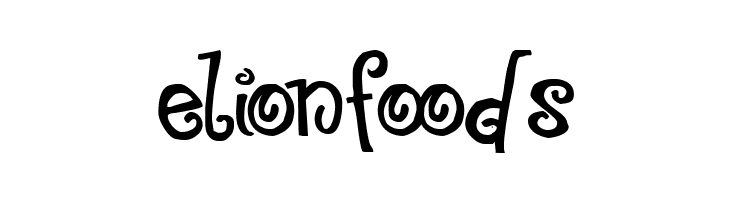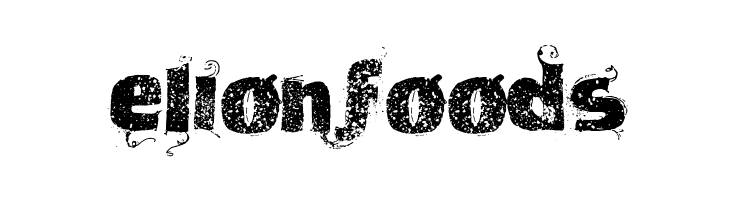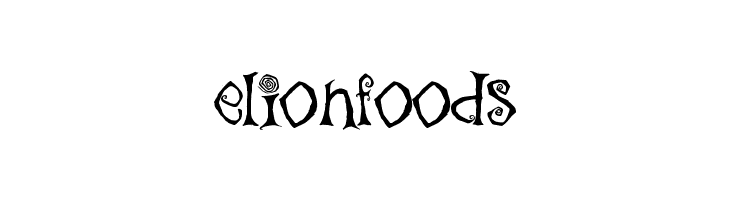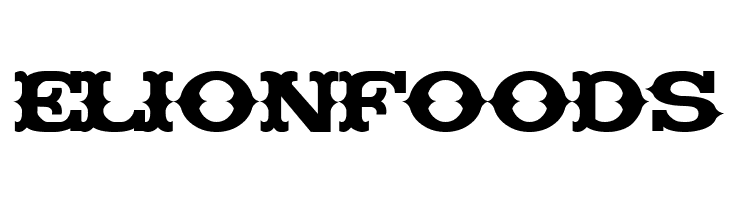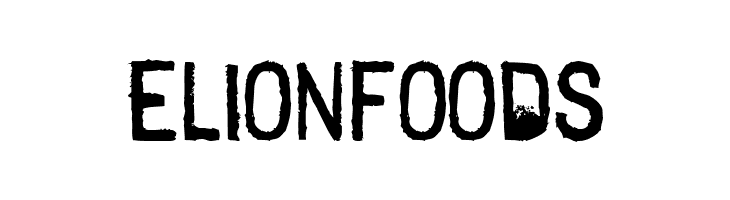
( Fonts by Christopher Hansen )
A whimsical, decorative font with intricate, vine-like embellishments.
( Fonts by Typearound )
A playful, hand-drawn font with bold, whimsical strokes.
( Fonts by Kimberly Geswein - kimberlygeswein.com )
A whimsical, decorative font with floral and spiral embellishments.
A bold, decorative font with a vintage, grunge texture and intricate embellishments.
( Fonts by Christopher Hansen )
A whimsical, decorative font with swirling embellishments and a fairy-tale style.
( Fonts by Christopher Hansen )
A whimsical, decorative font with spiral embellishments and a hand-drawn style.
( Fonts by Harold Lohner - www.haroldsfonts.com )
A bold, decorative font with thorn-like embellishments for a unique, edgy look.
( Fonts by Levi Halmos )
A bold, vintage-style font with theatrical and quirky embellishments.